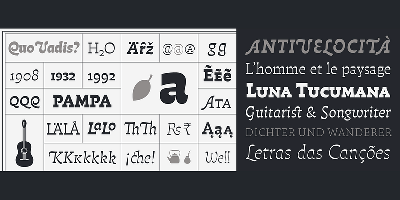
Jornada Fonts System Superfamily
Jornada Fonts System Superfamily is perfect for corporate identity systems, multinational brand guidelines, comprehensive publishing projects, complex wayfinding systems, government communications, enterprise software interfaces, academic institutions, and large-scale organizational branding where systematic consistency and typographic versatility are essential.
What makes Jornada Fonts System Superfamily exciting is its comprehensive systematic character that perfectly captures the organizational efficiency and professional versatility required for complex institutional communications and multi-platform brand implementations. This superfamily features harmoniously designed letterforms across multiple styles and weights that mirror the structured approach of successful organizations and the typographic precision of world-class design systems. Its authoritative presence instantly communicates professionalism, systematic thinking, and institutional reliability that resonates with corporate decision-makers, government officials, and anyone managing complex organizational communications.
Jornada Fonts System Superfamily includes sans serif, serif, and slab variations in comprehensive weight ranges from thin to black, plus condensed and extended styles with matching italics, providing complete typographic solutions for the most demanding institutional branding and communication systems.